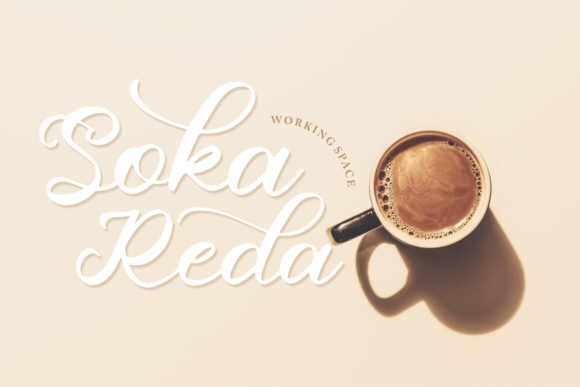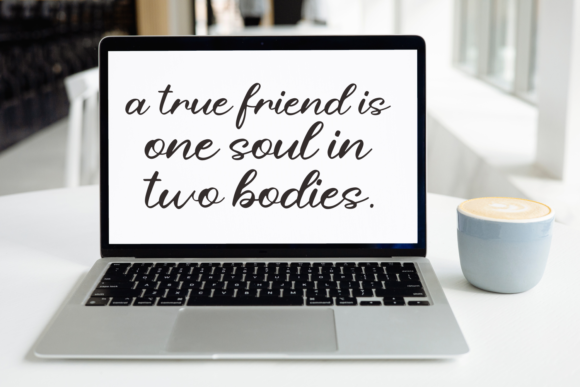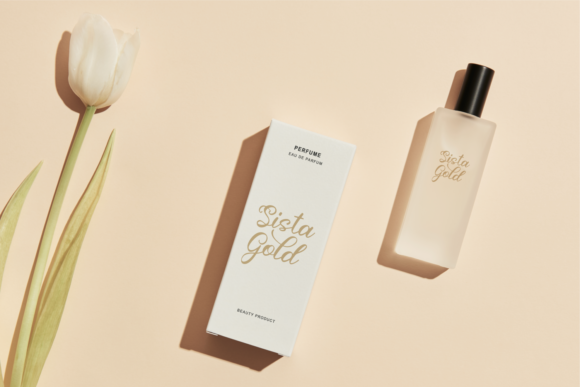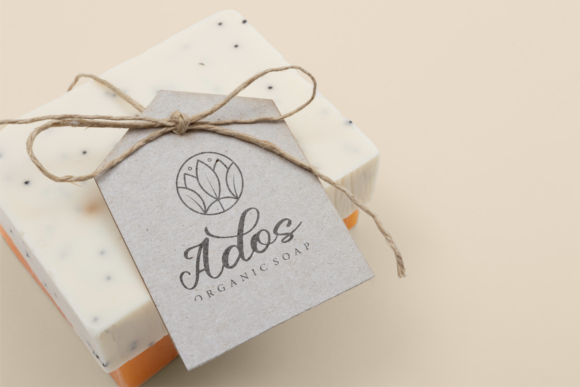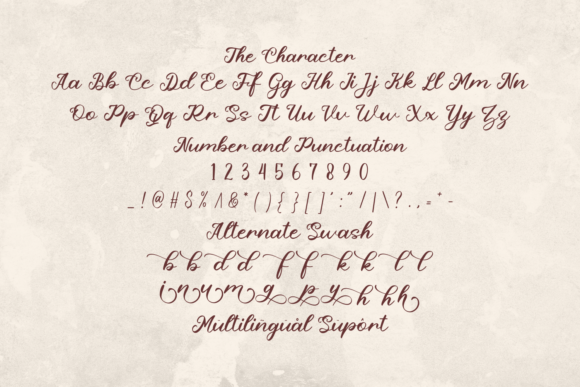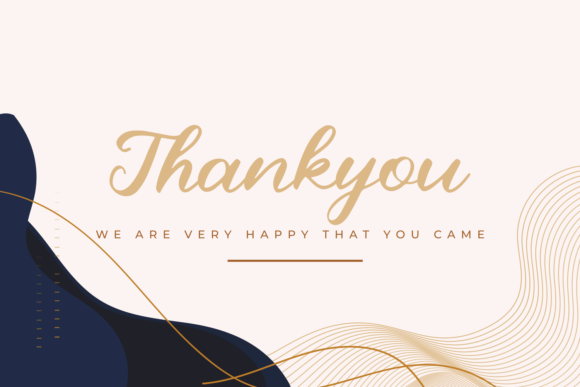
Qiyu Font
About Qiyu Font
Qiyu is a fancy and elegant handwritten font that was created to impress your audience and make your branding shine.
Make your projects dance with this elegant and wonderful font, wherever you use it.
Use it for your headings, logos, ads, printed quotes, packaging, and even your website or social media branding.
Every letter has a unique and beautiful touch that will make your designs come alive!